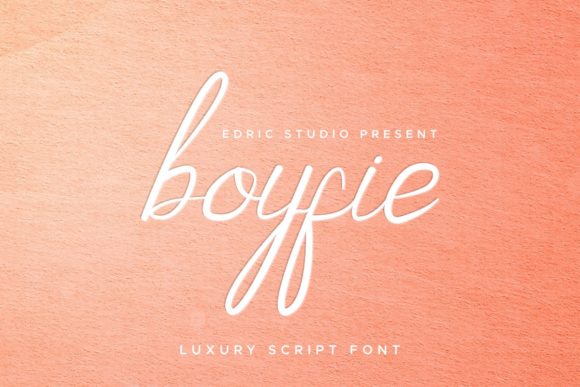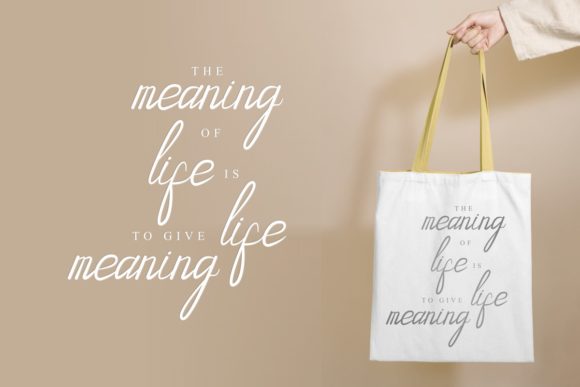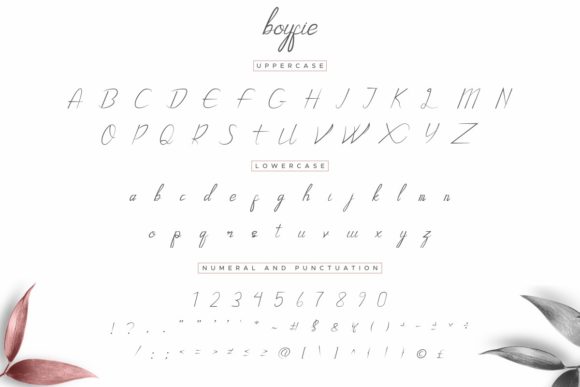
Introduction to Boyfie Font
Boyfie results out of a stunning pairing of a brush pen and pencil that makes it look incredibly endearing and authentic.
Use this gorgeous and unique script font to bring any DIY project to life .
Key Features of Boyfie Font